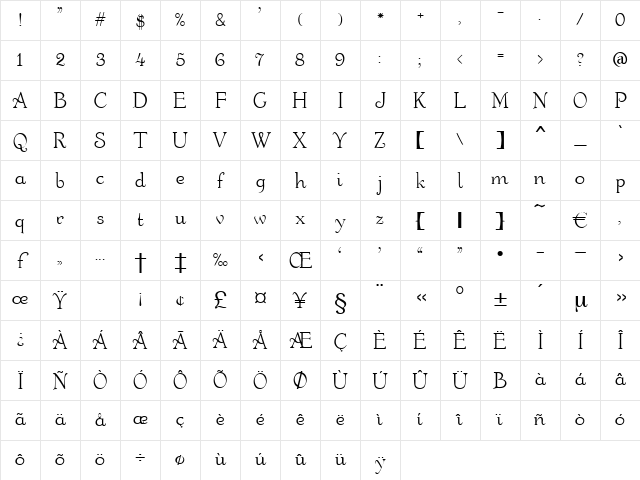
Montaigne Regular Free Font
Montaigne Regular
Design Context for Montaigne
Montaigne is a composed and adaptable typeface that performs quietly and consistently across a wide range of design contexts.